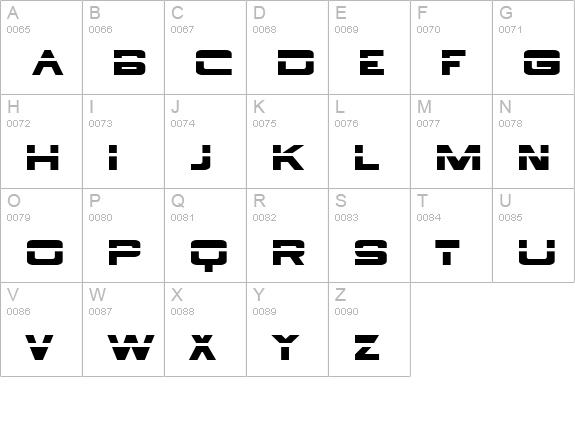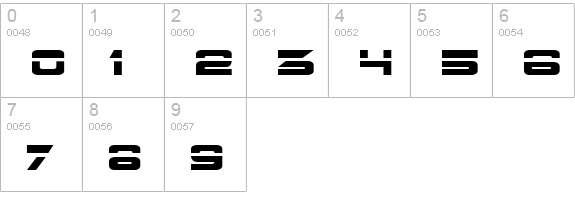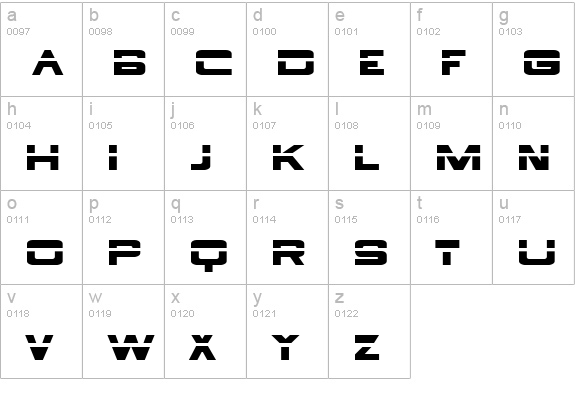
Borg-9 font is a modern and sleek typeface that exudes sophistication and elegance. With its clean lines and sharp edges, this font is perfect for creating eye-catching designs for various projects. Whether you are working on branding, advertising, or editorial designs, Borg-9 font will surely make your text stand out. The best part about Borg-9 font is that it is completely free to download at FontsMarket.com. This means that you can access this stylish font without any cost and use it in your projects without any restrictions. Don't miss out on this opportunity to enhance your designs with the sleek and professional look of Borg-9 font. Download it today and start creating stunning visuals that will leave a lasting impression.